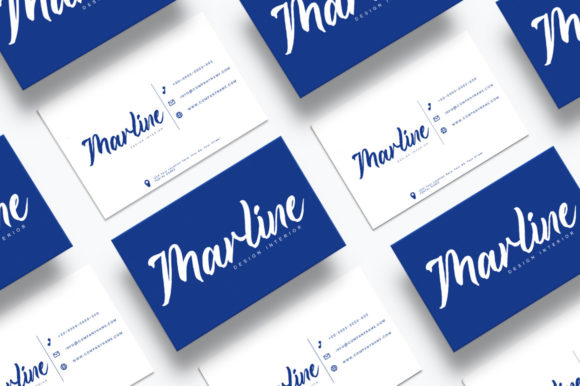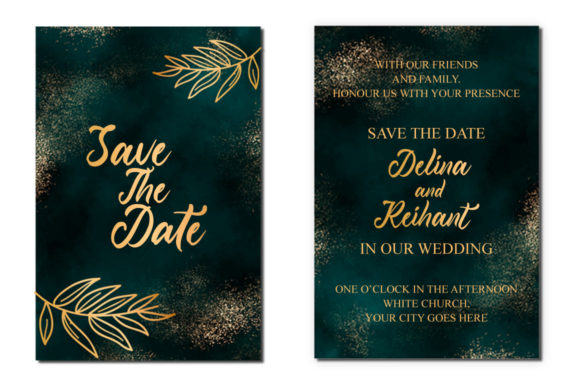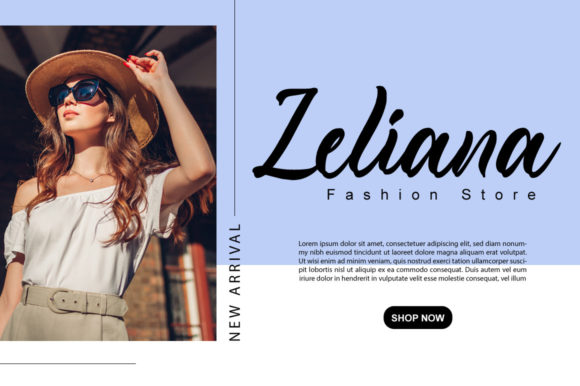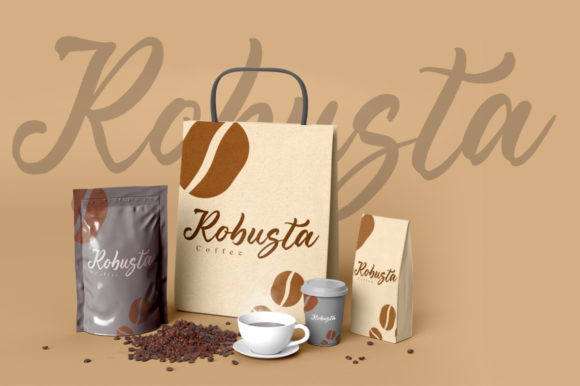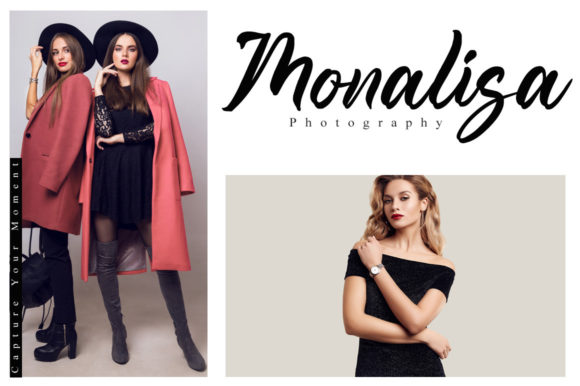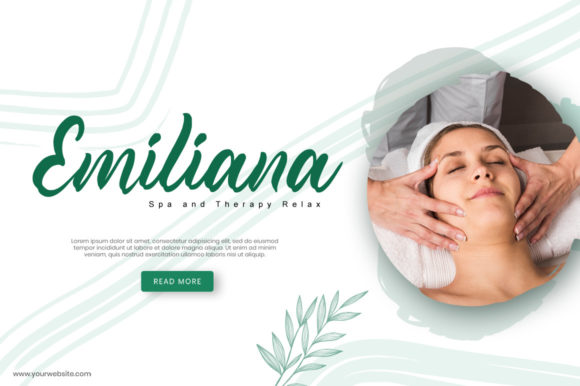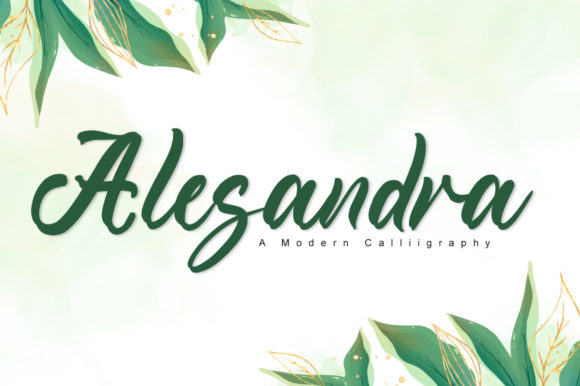
Alesandra Font: Elevate Your Designs with Elegance and Class
In the world of typography, a font can make or break the aesthetic of a design. For those seeking a touch of elegance and sophistication, Alesandra Font is an exquisite choice. This lovely and delicate script font is specifically crafted for designers and crafters who desire to infuse their creations with a refreshing and beautiful look.
The Essence of Alesandra Font
Alesandra Font is a script typeface that embodies the perfect blend of elegance and class. Its delicate strokes and curves are meticulously designed to add a touch of sophistication to any design project. Whether you’re working on a branding project, packaging, or stationery, Alesandra Font is sure to elevate your design to new heights.
Key Features of Alesandra Font
- Delicate and Elegant: Alesandra Font boasts a delicate and elegant appearance, making it perfect for designs that require a touch of sophistication.
- Script Typeface: This font features a beautiful script typeface that adds a personal and creative touch to your designs.
- Refreshing Look: Alesandra Font is designed to provide a refreshing look to your designs, setting them apart from the rest.
- Highly Versatile: This font is highly versatile and can be used for a wide range of design projects, from branding and packaging to stationery and more.
Alesandra Font is an ideal choice for designers and crafters who want to add a touch of elegance and class to their creations. Whether you’re a professional designer or a DIY enthusiast, this font is sure to inspire your creativity and help you produce stunning designs.
Use Cases for Alesandra Font
Alesandra Font can be used in a variety of design projects, including:
- Branding and Logo Design: Use Alesandra Font to create a sophisticated and elegant brand identity.
- Packaging Design: Add a touch of class to your packaging designs with this beautiful script font.
- Stationery and Invitations: Create stunning stationery and invitations with Alesandra Font’s elegant and delicate appearance.
- Web Design: Use Alesandra Font to add a touch of sophistication to your website’s typography.
Tips for Using Alesandra Font
To get the most out of Alesandra Font, here are some tips to keep in mind:
- Pair with Bold Fonts: Pair Alesandra Font with bold fonts to create a striking contrast and add visual interest to your designs.
- Use for Headings and Titles: Use Alesandra Font for headings and titles to add a touch of elegance and sophistication.
- Experiment with Colors: Experiment with different colors to find the perfect match for your design and Alesandra Font.
Alesandra Font is a beautiful and elegant script font that is sure to elevate your designs to new heights. With its delicate strokes and curves, this font is perfect for designers and crafters who desire to add a touch of sophistication and class to their creations. Whether you’re working on a branding project, packaging, or stationery, Alesandra Font is an excellent choice.